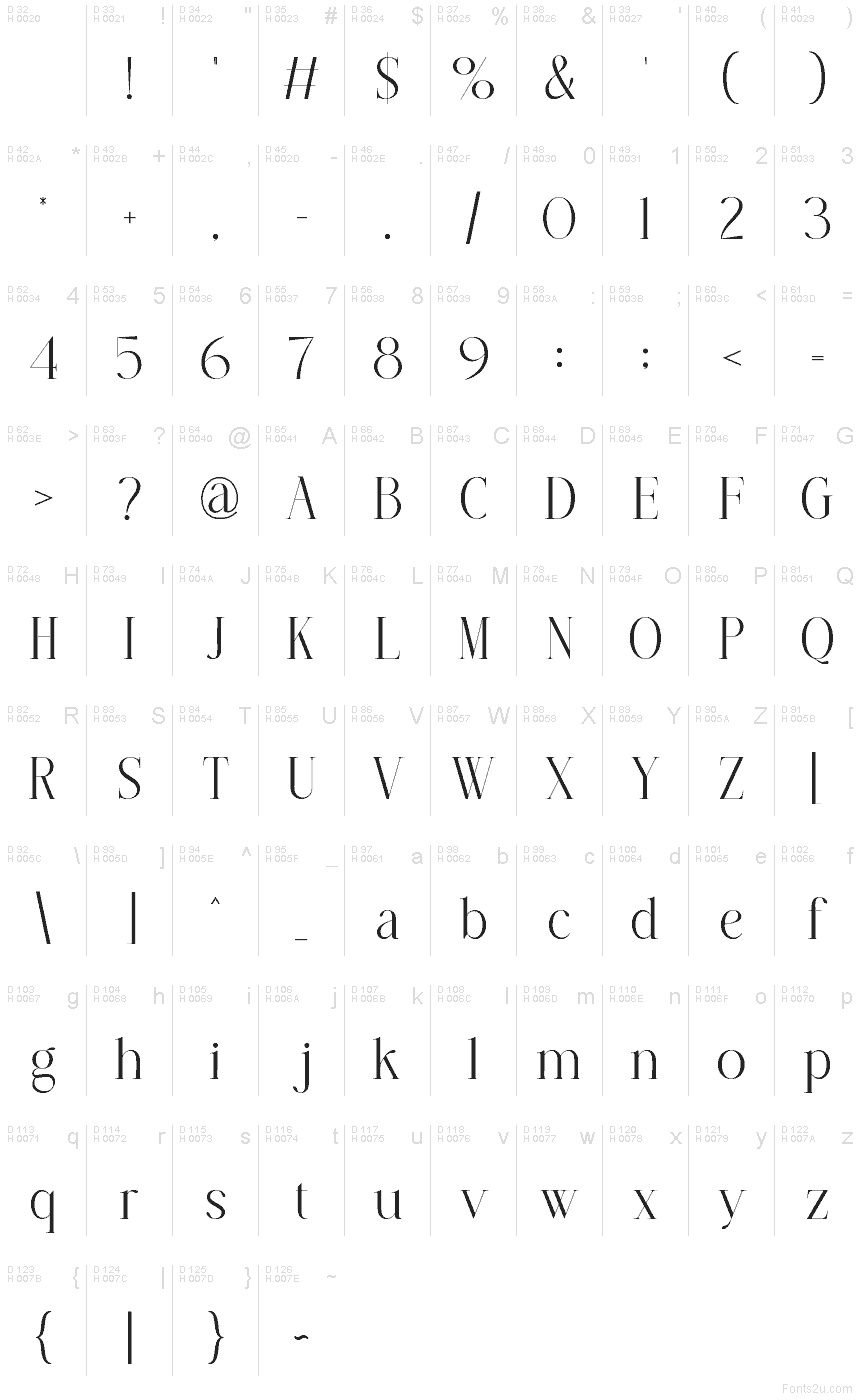
Mineva
Mineva font by Ermedia Studio is a free high-contrast serif font that solves a classic dilemma: how to signal luxury in tight layouts. Its tall, slightly condensed forms and razor-thin hairlines deliver couture drama without shouting, while the firm, inky stems keep it readable at display sizes. Think crisp, glassy highlights meeting velvety blacks—elegant, confident, and wonderfully restrained.
Using Mineva, headlines glide across narrow columns and logos carry instant gravitas. It shines on fashion branding, magazine covers, beauty packaging, jewelry marks, editorial pull quotes, posters, and website hero type. This free font works beautifully when set large with generous tracking; pair it with a quiet grotesque sans to keep the spotlight on those sculpted contrasts.